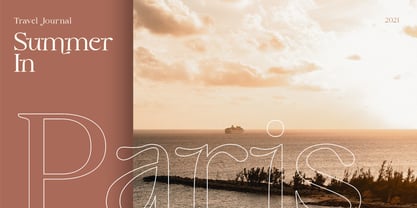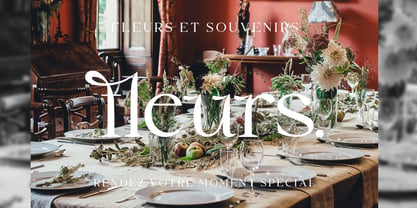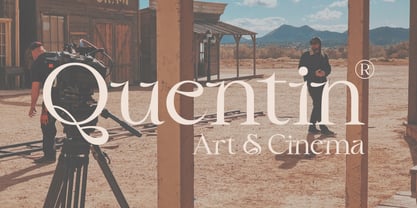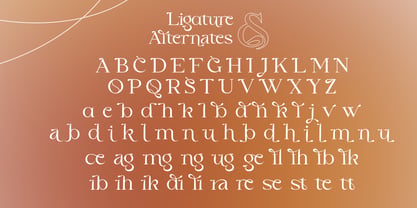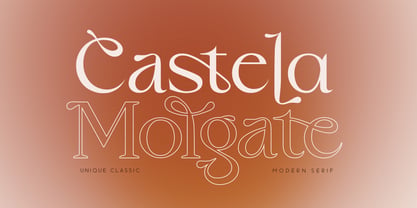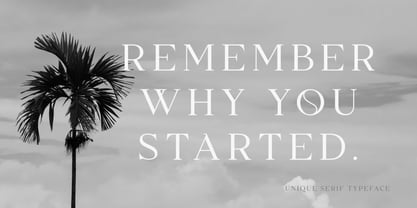
Castela Molgate
Die Schriftfamilie Castela Molgate wurde von Aldi Hendarto entworfen und von AMost veröffentlicht. Castela Molgate enthält 1 Stile. Mehr über diese Familie
Castela Molgate is a unique classic serif font that blends timeless elegance with a modern artistic touch. Featuring a rich collection of beautiful ligatures and stylish alternates, this typeface allows you to create sophisticated typography with effortless charm. Every letter is carefully crafted to bring a luxurious and distinctive character to your designs.